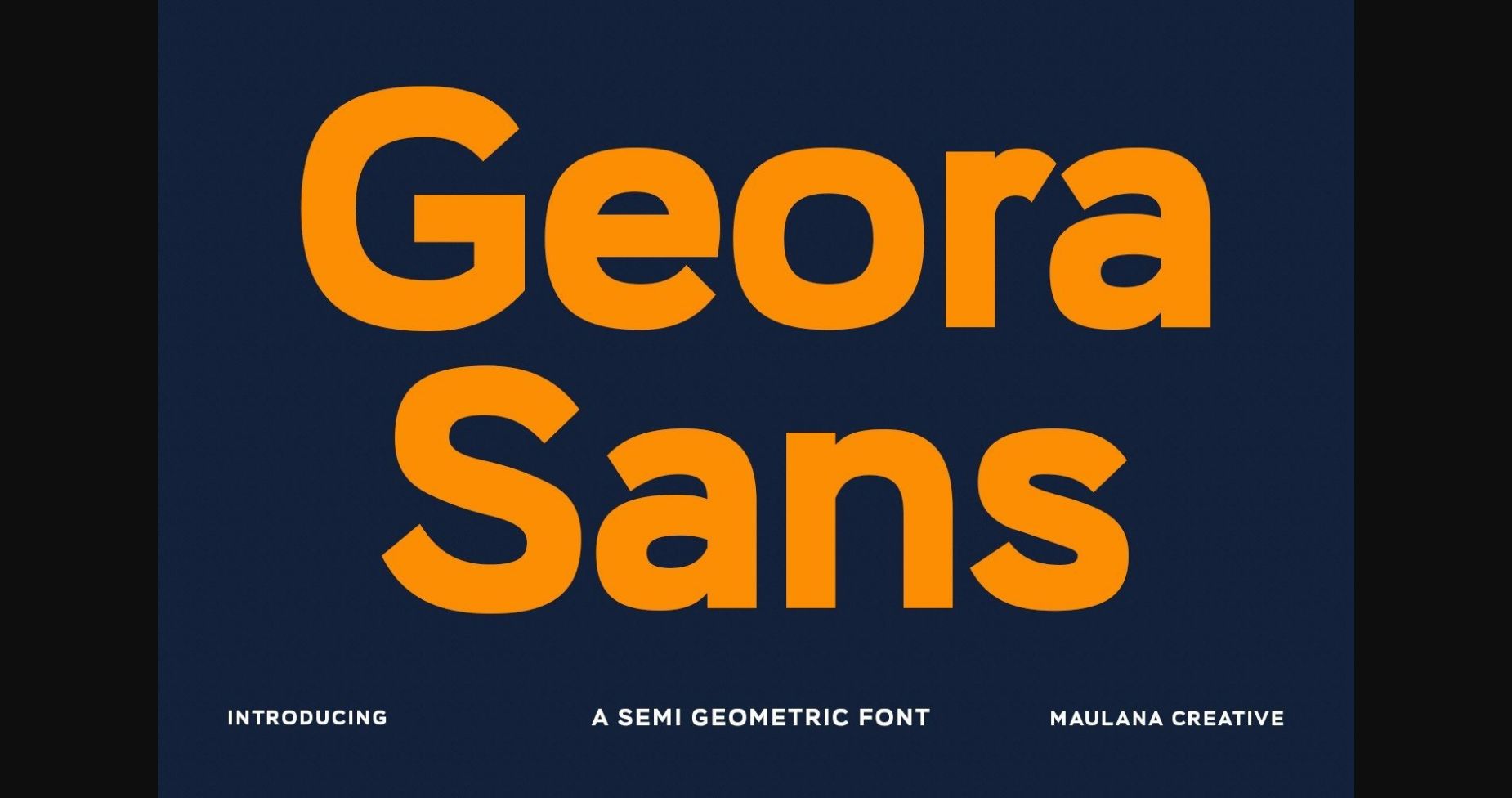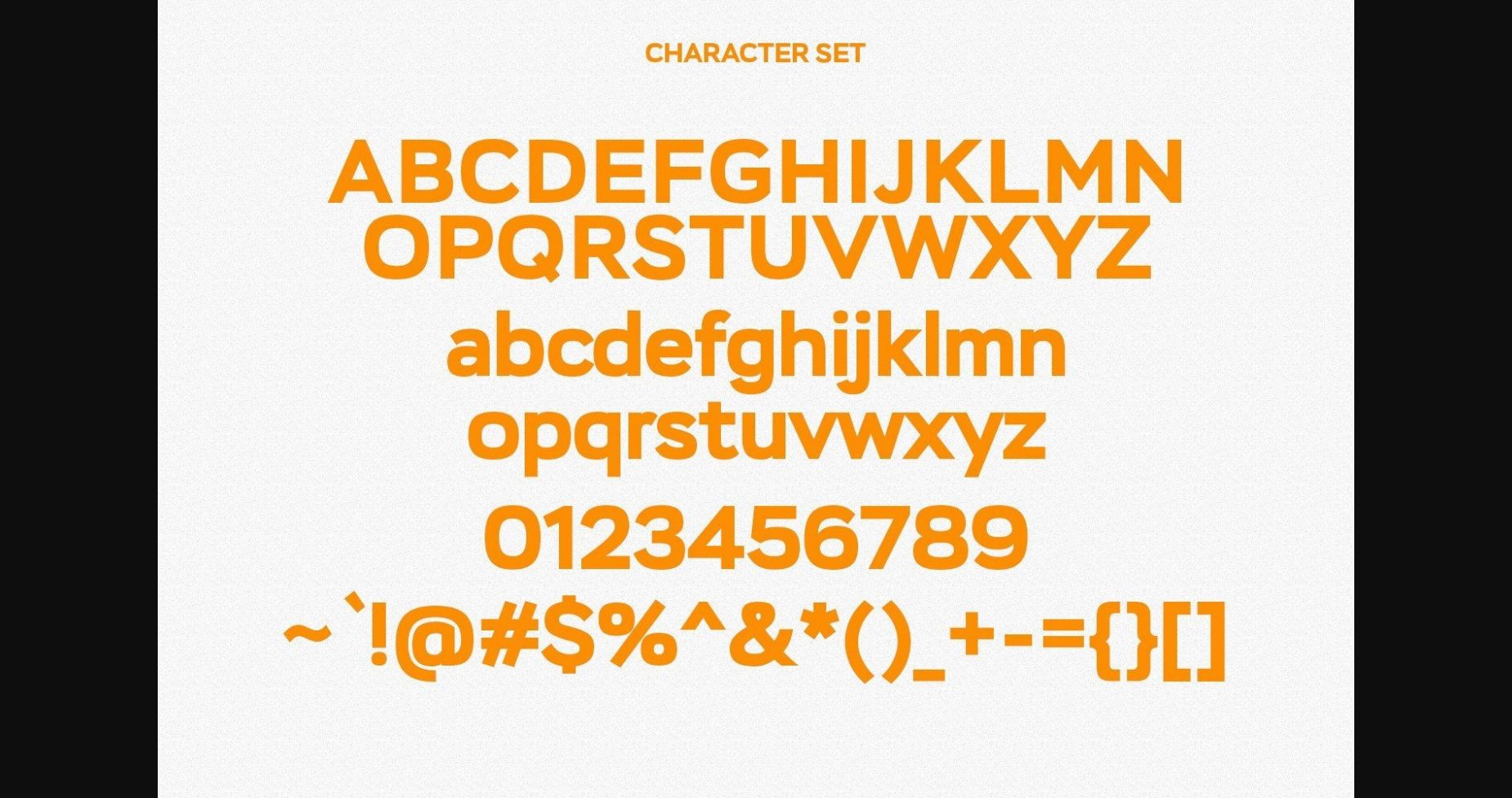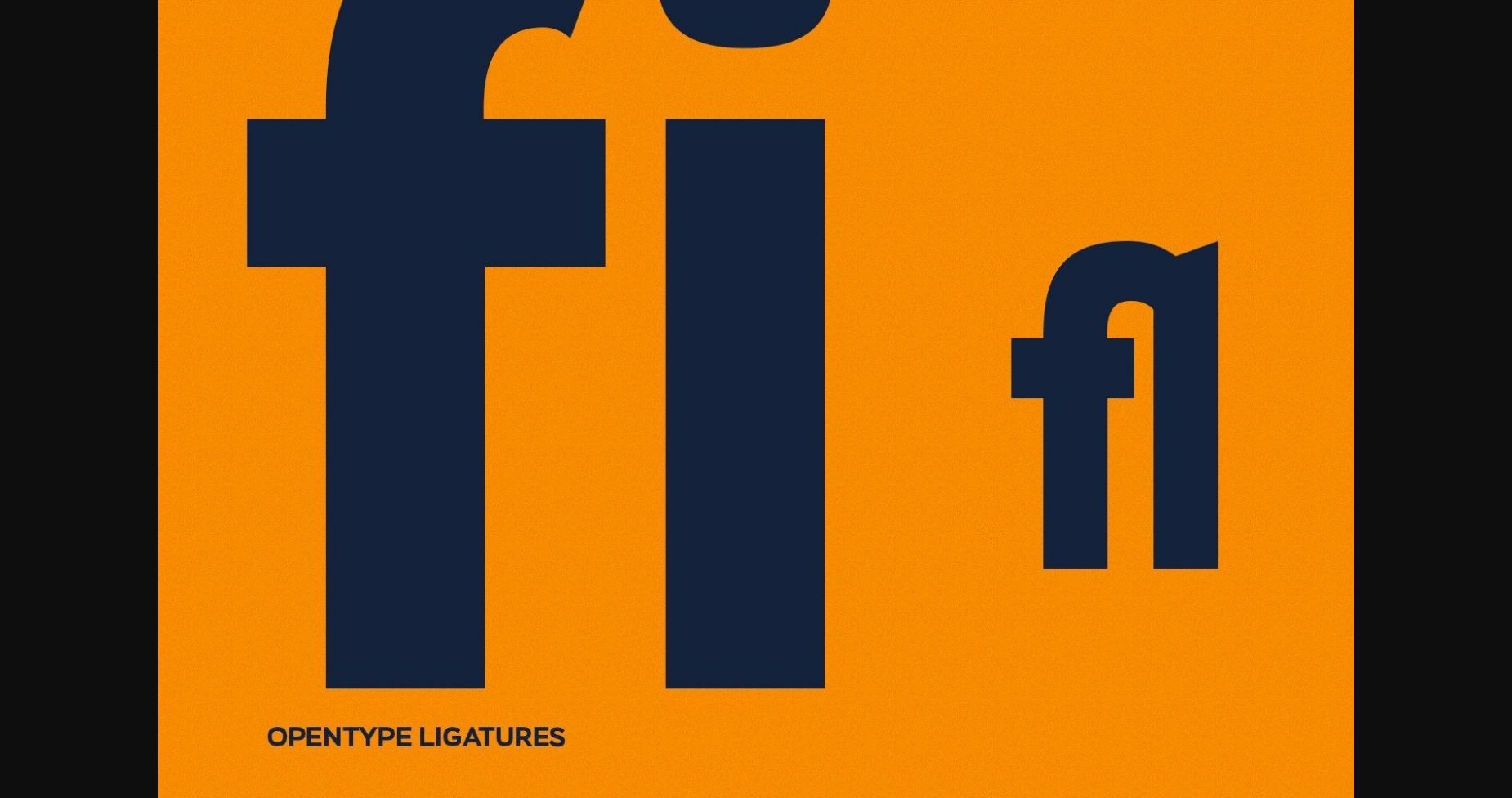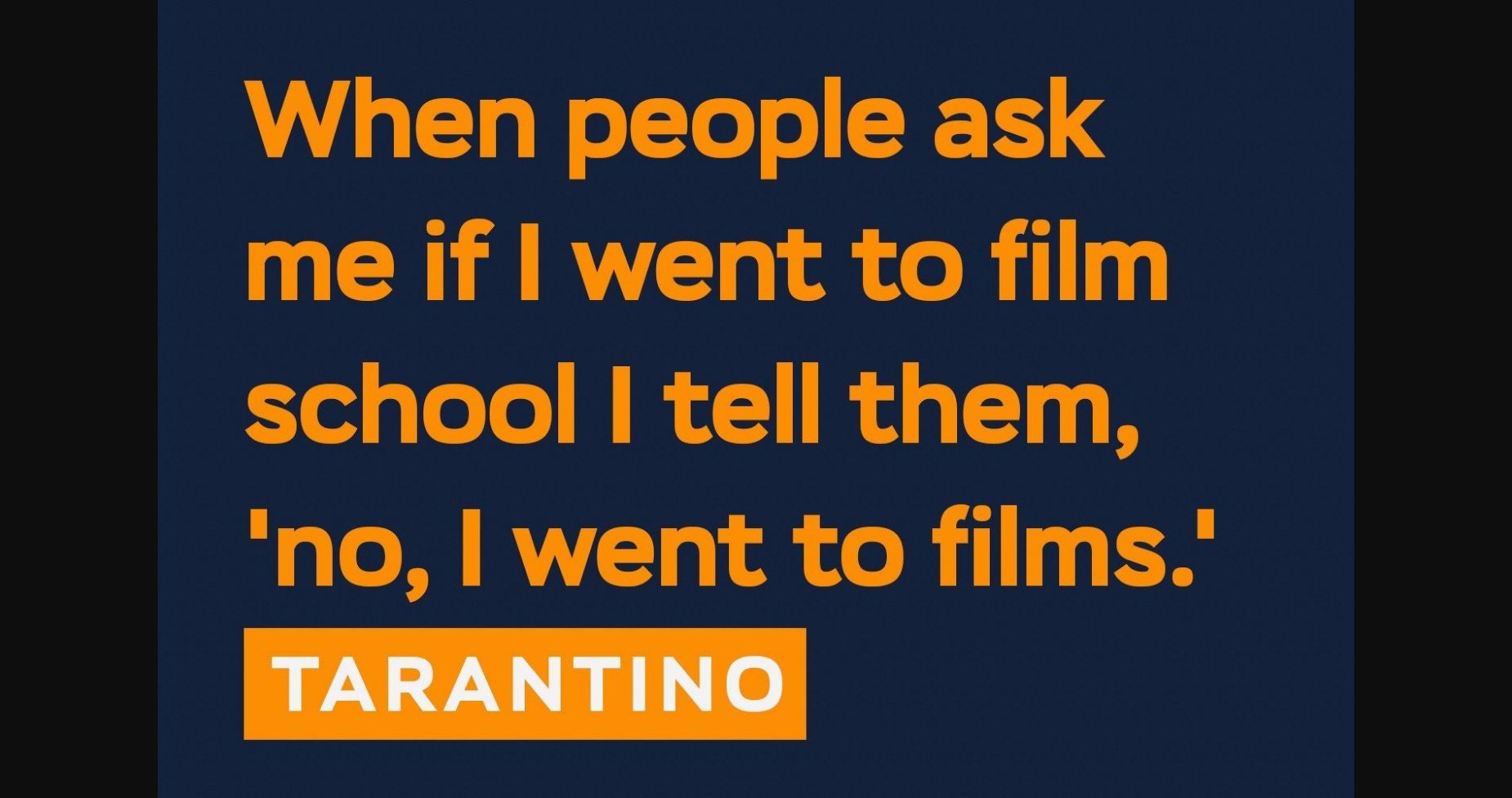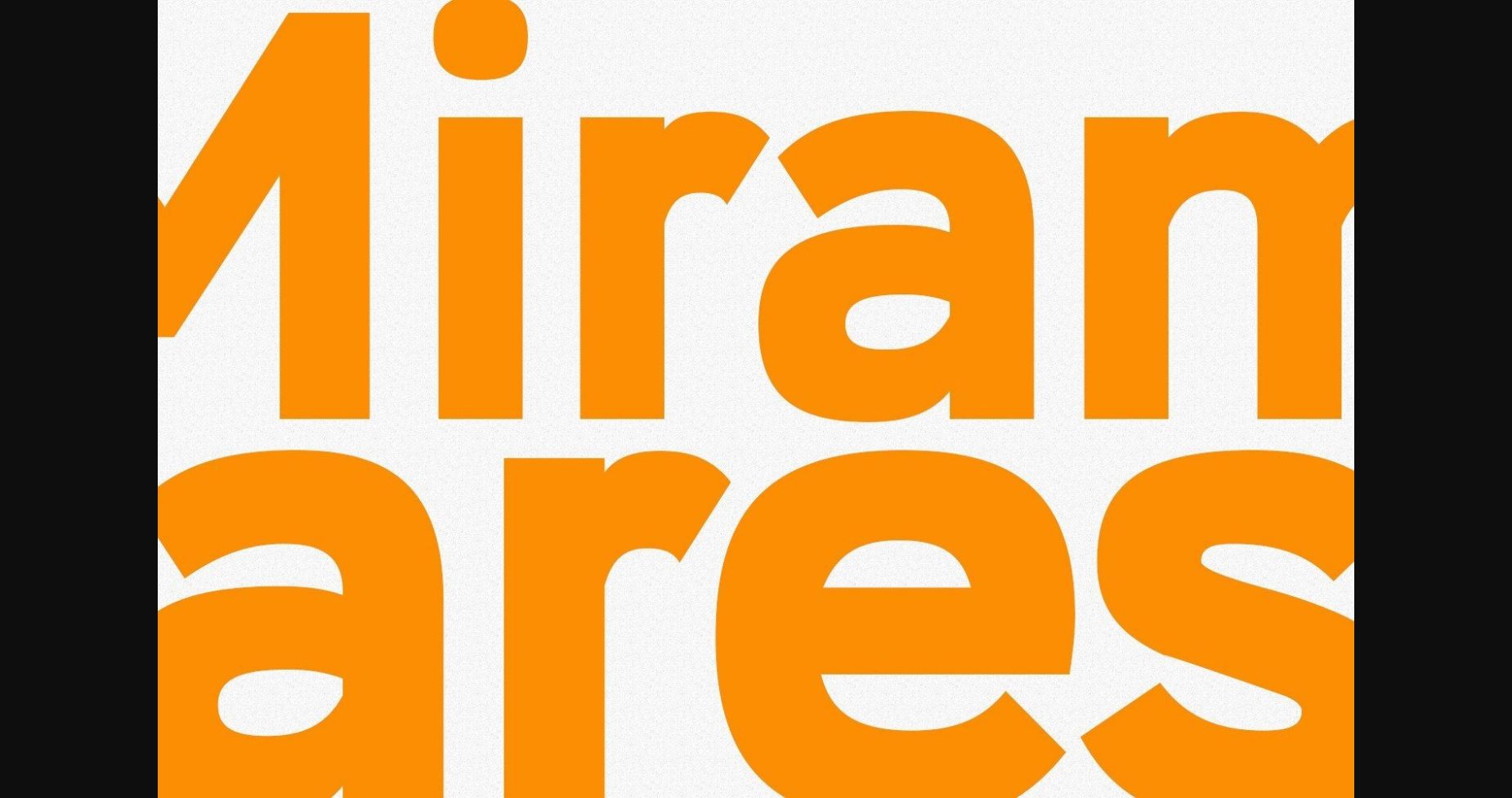
About Geora Font
Geora is a simply semi-geometric sans serif font. With medium low contrast stroke, fun character with a bit of ligature and alternates. To give you extra creative work. This font is good for logo design, Social media, Movie Titles, Books Titles, short text even long text letters, and good for your secondary text font with sans or serif. Make stunning work with Geora font.